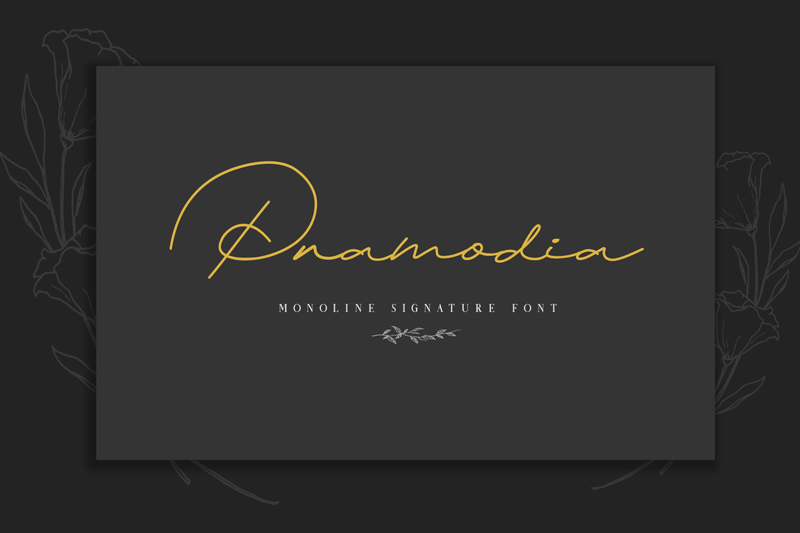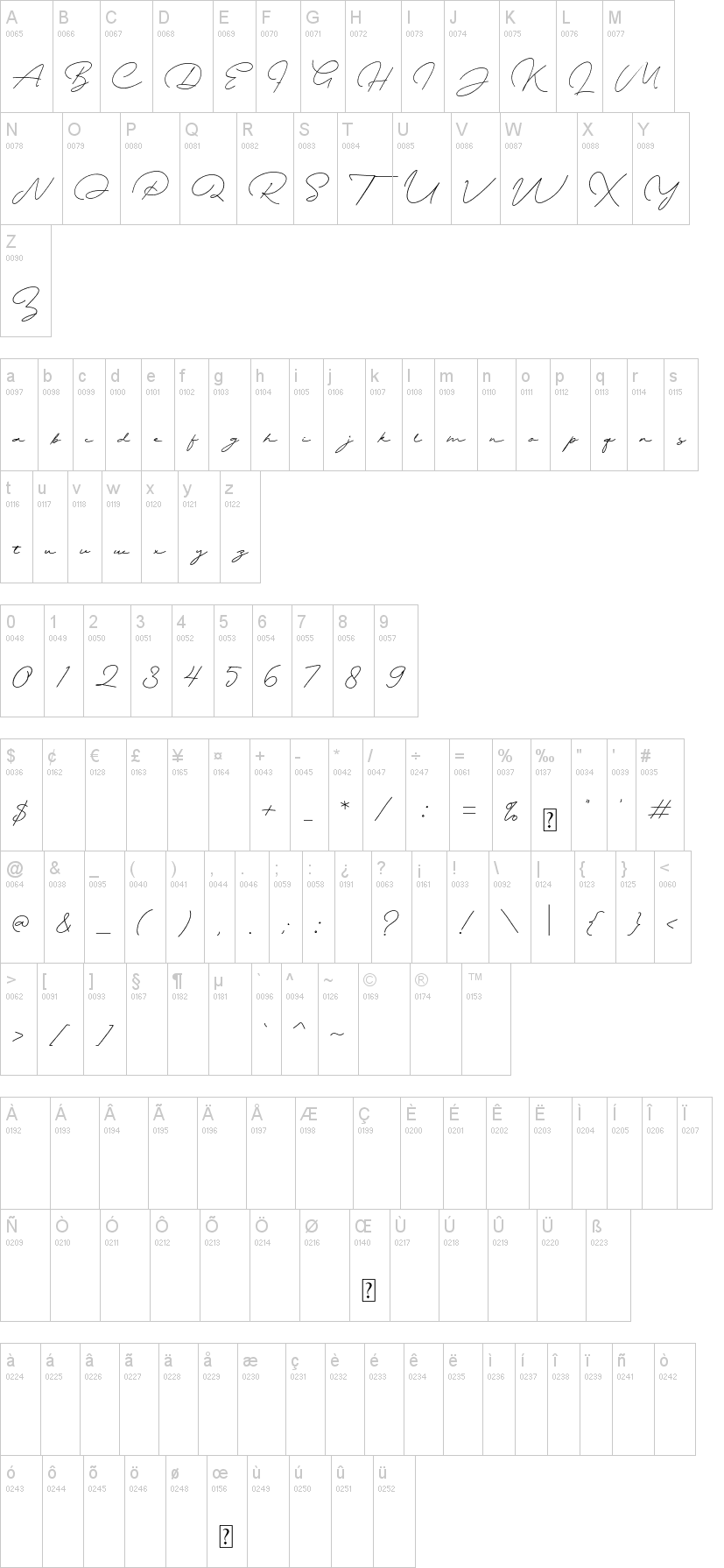
Note of the authorPramodia is a beautiful monoline script font. It is a beautiful combination of timeless elegance and authentic calligraphy. It features an incredibly classic style, while still keeping a friendly feel. Pramodia is the perfect font for making original and outstanding designs.